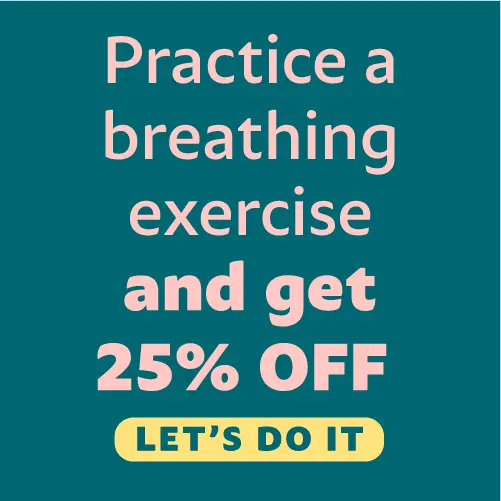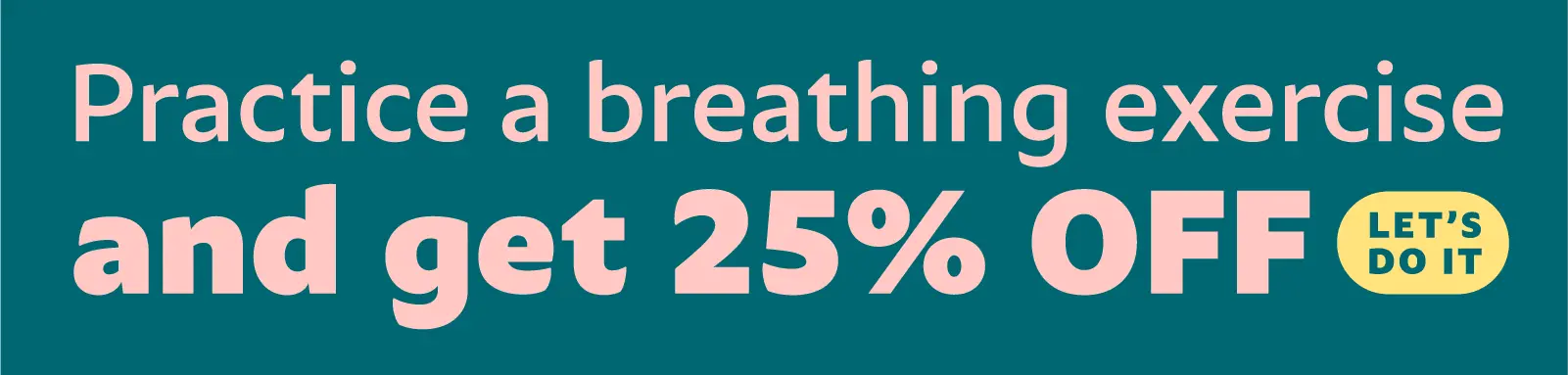
Pitanga
A typeface sculpted for a diversity of usages
Sofia Mohr
Fabio Haag, Ana Laydner, Henrique Beier and Eduilson Coan
Imagine a Brazil that can only be visited between the lines, with an identity that manifests in unpredictable ways. In the footballer’s twisted leg, in the sudden improvisation, in the softness of Bossa, and in the infinity of colors, shapes, and expressions that make up this reliquary of peoples and cultures.
The Pitanga font absorbs the many Brazils that exist to roam freely with light, organic, and loose strokes, creating a sculpted typeface for a diversity of usages. Its designer, Sofia Mohr, created a font that is music to our eyes. It is the form in its most irreverent and uncompromising function, but no less memorable, as in the best sambas.
Like the kid who draws in the beach sand or the kite that takes the skies of Vidigal, Pitanga expands with a calculated rebellion that calls itself flexible. A versatile and expressive font that shows off its curves with confidence and personality. It is Brazil in type form.